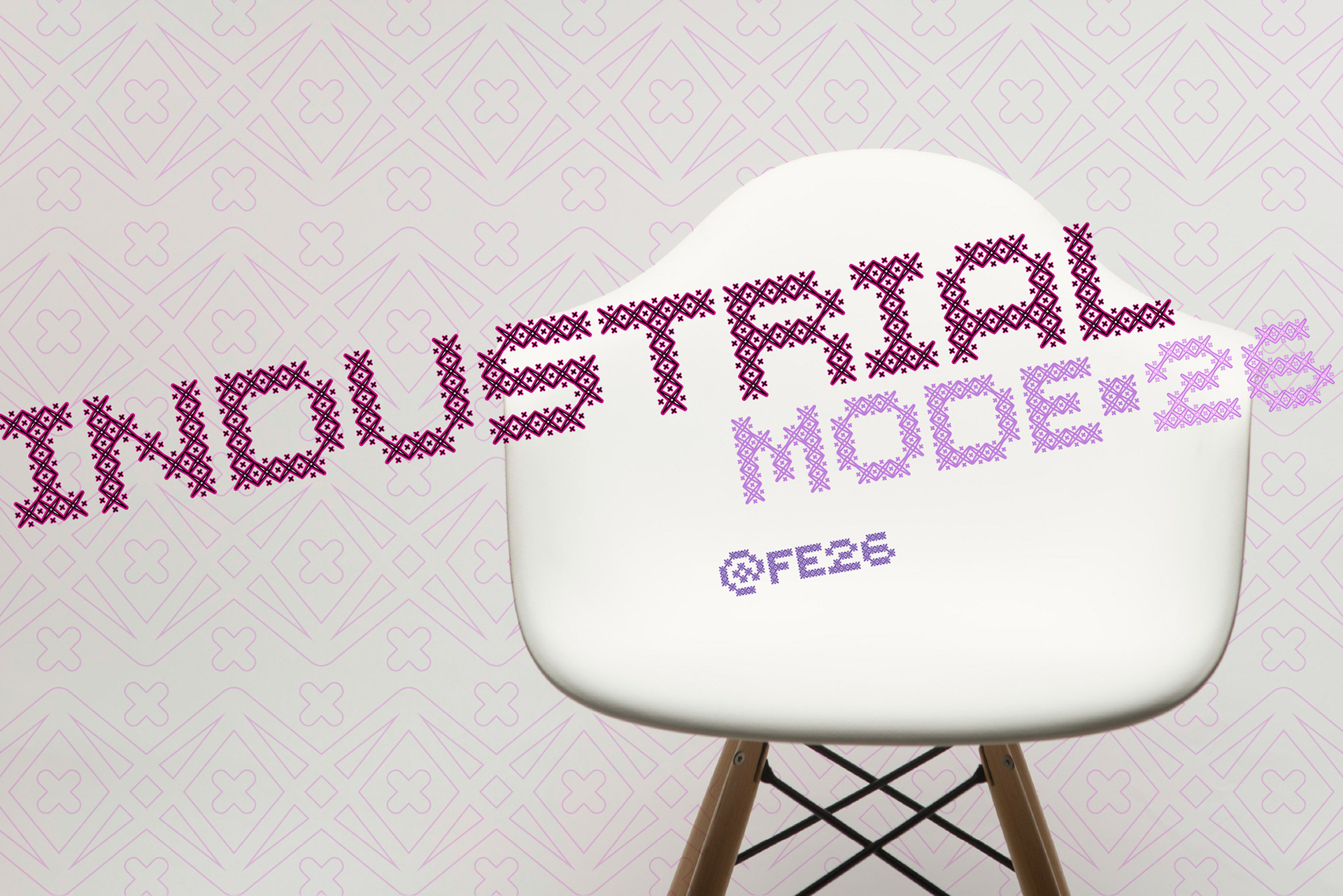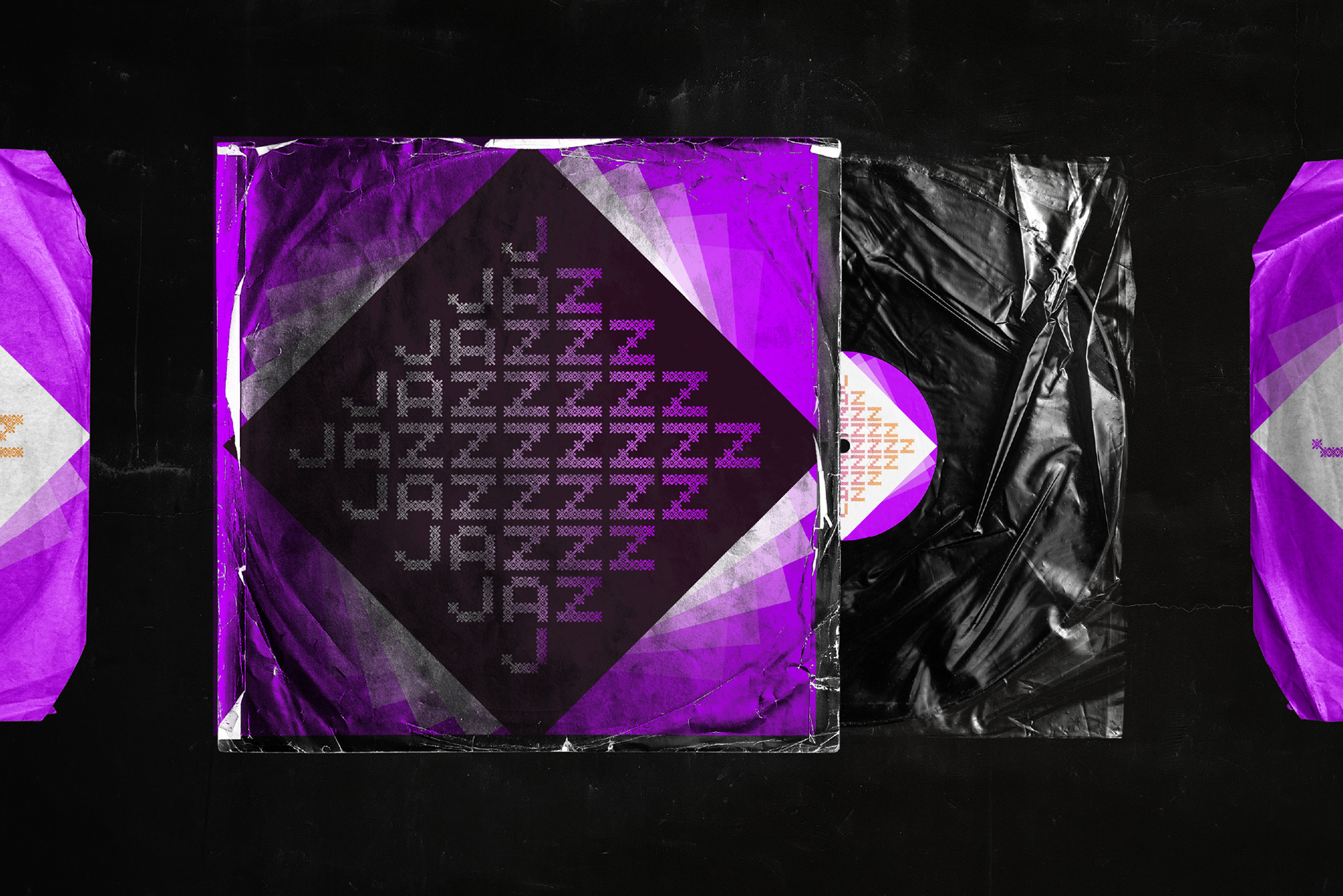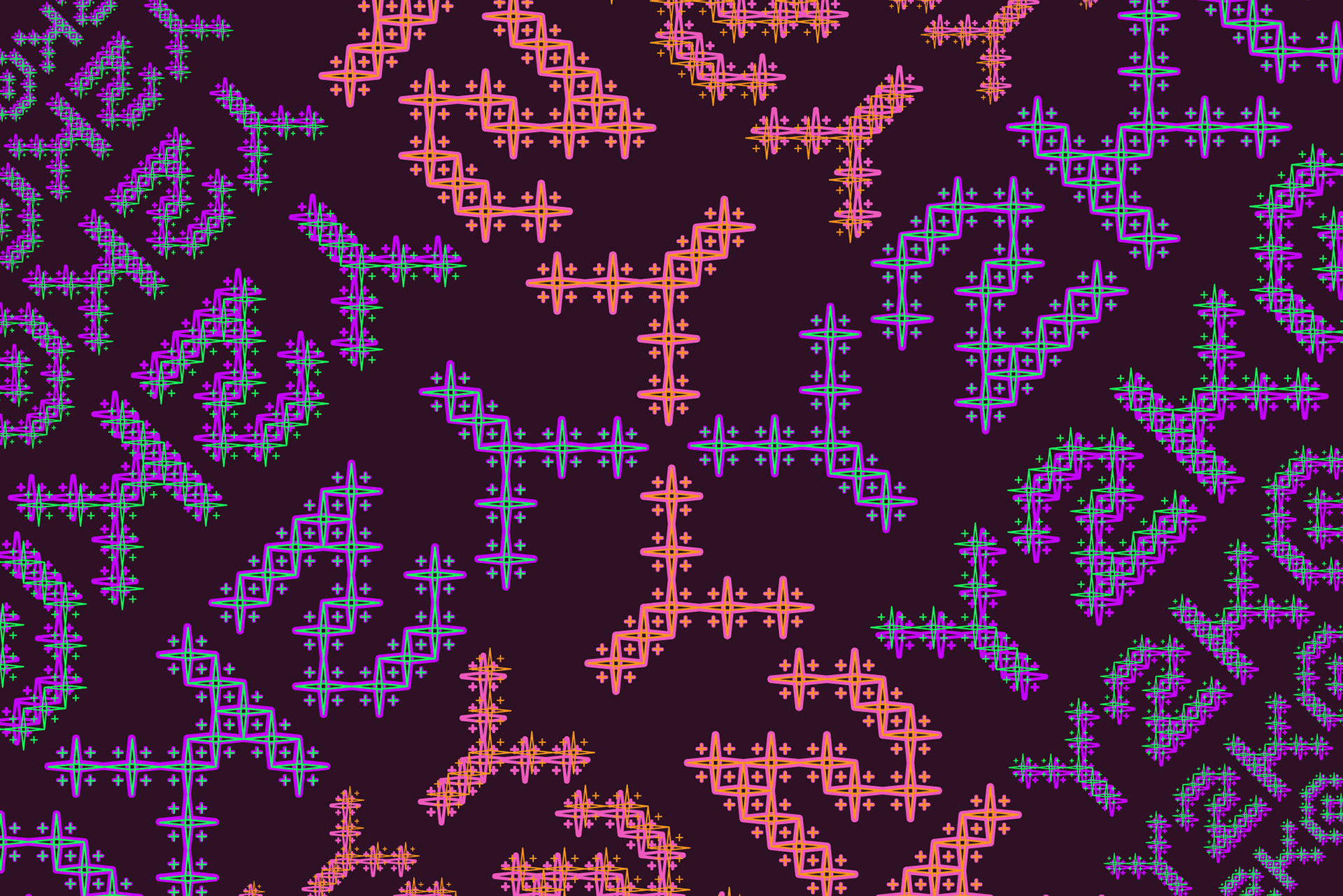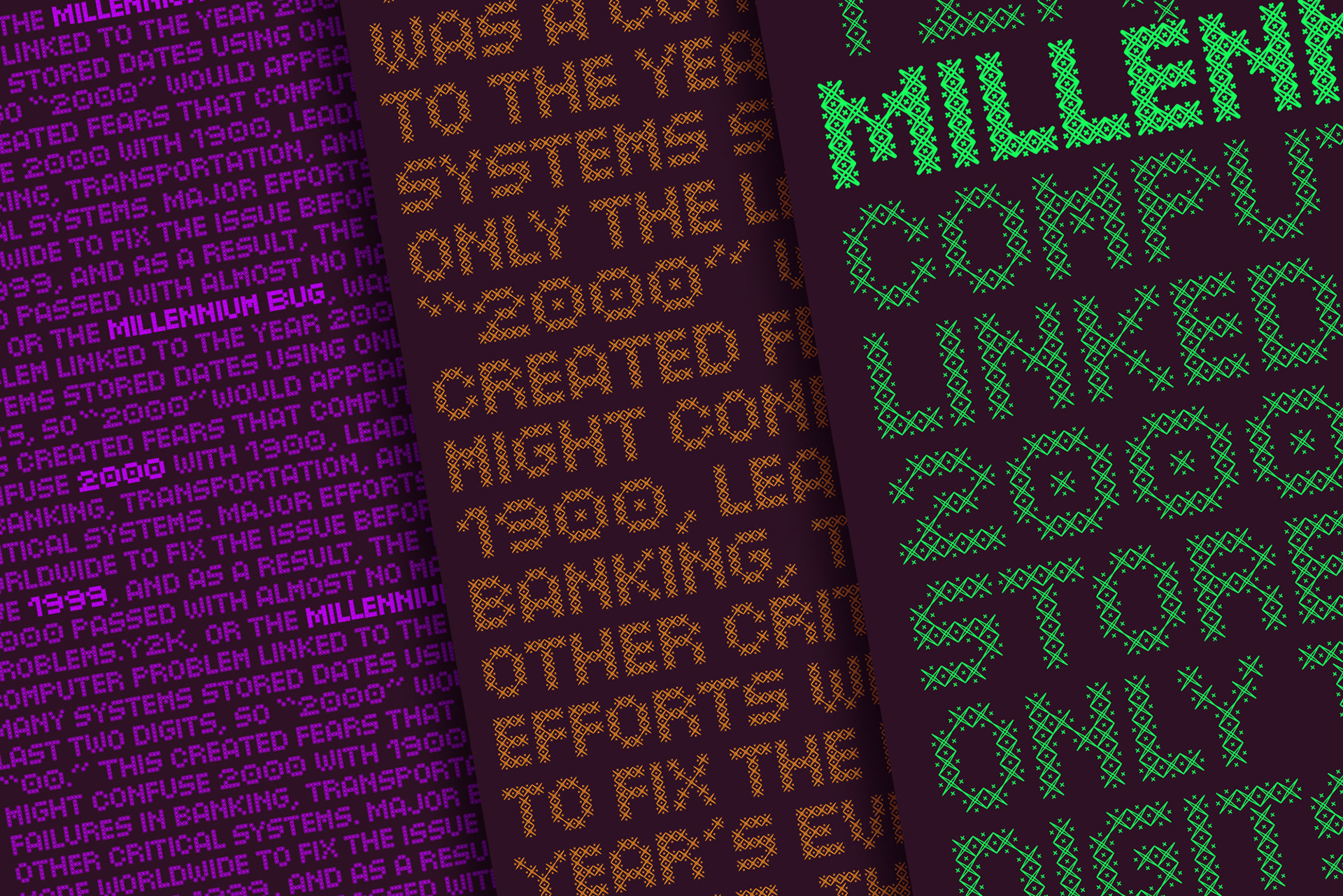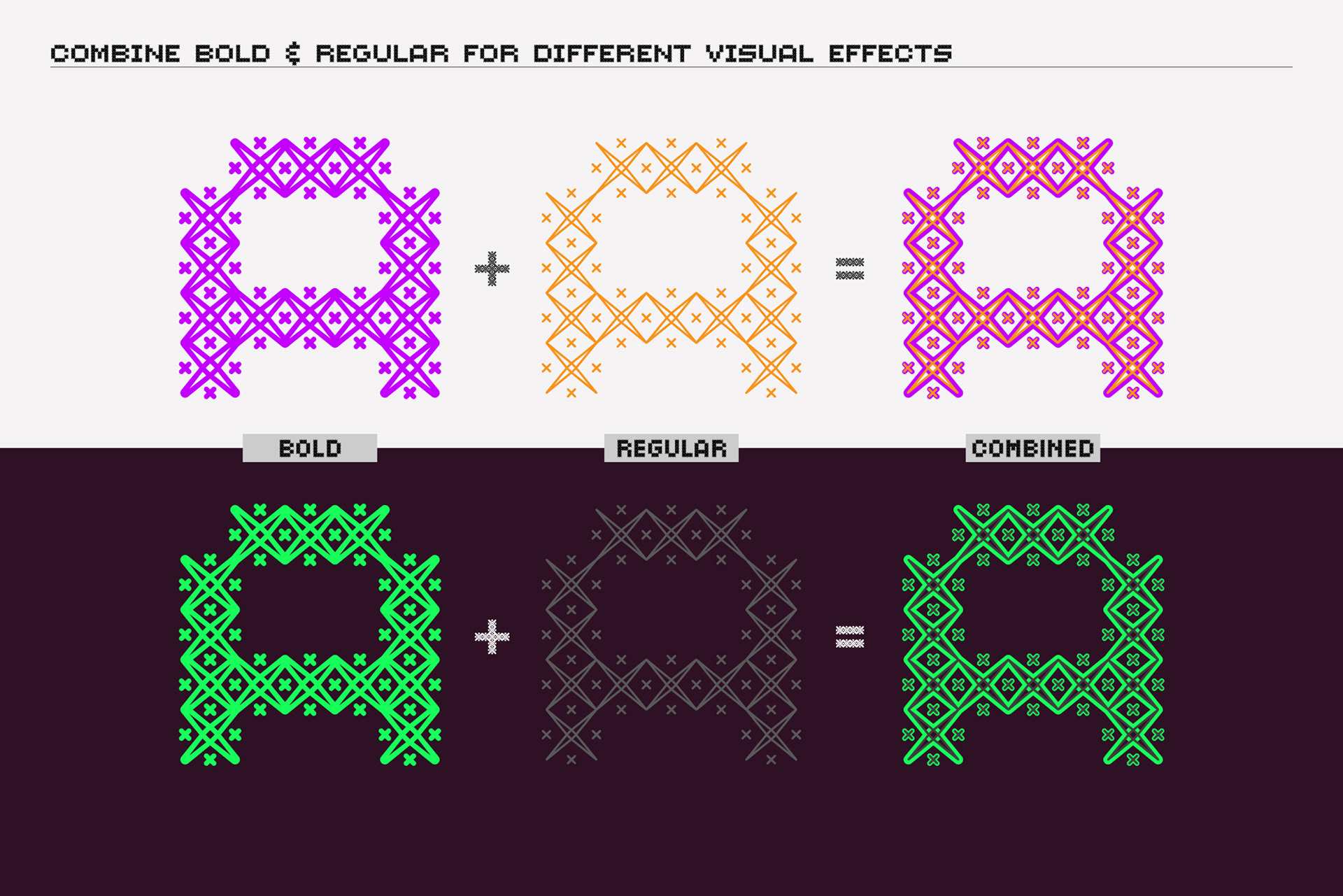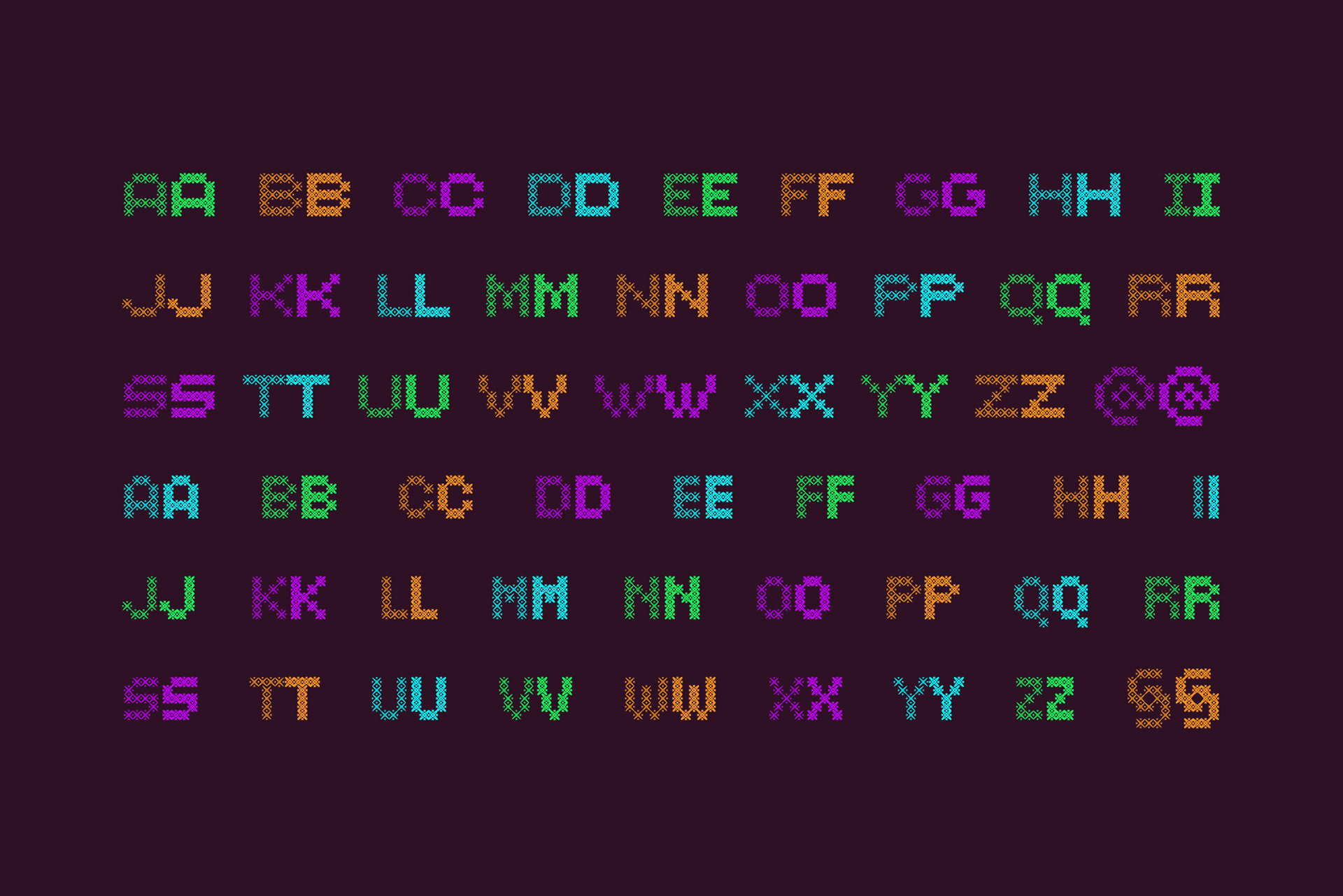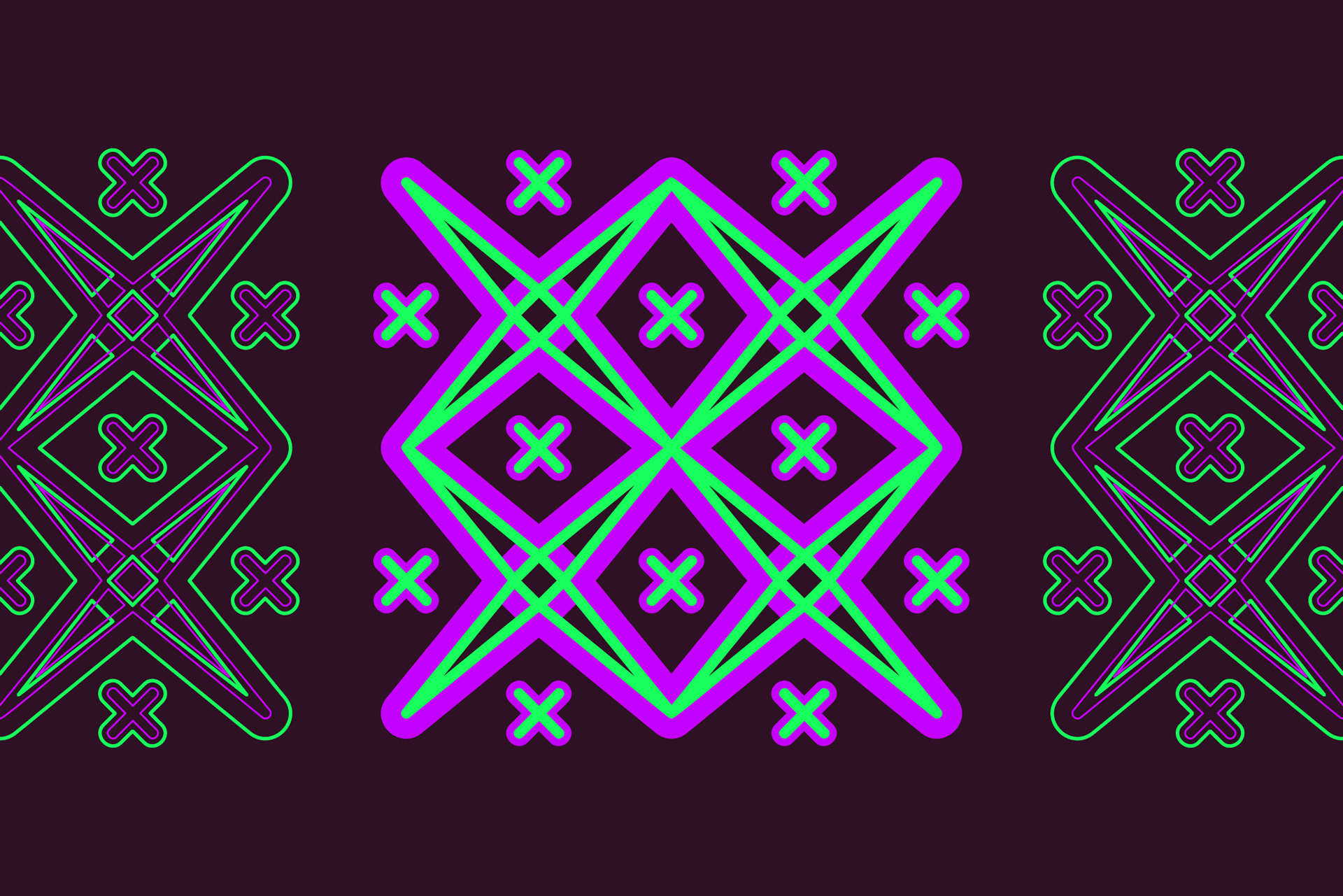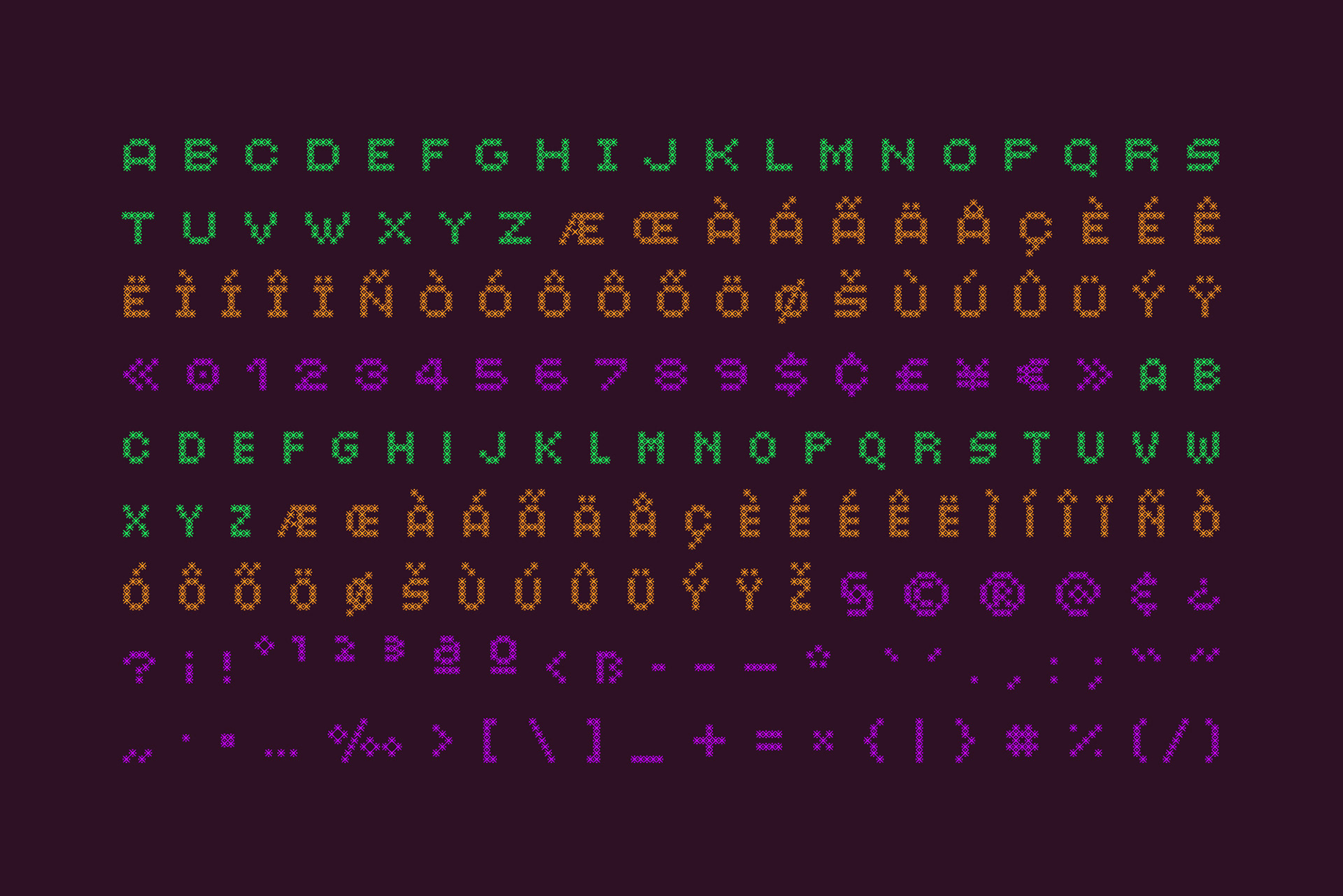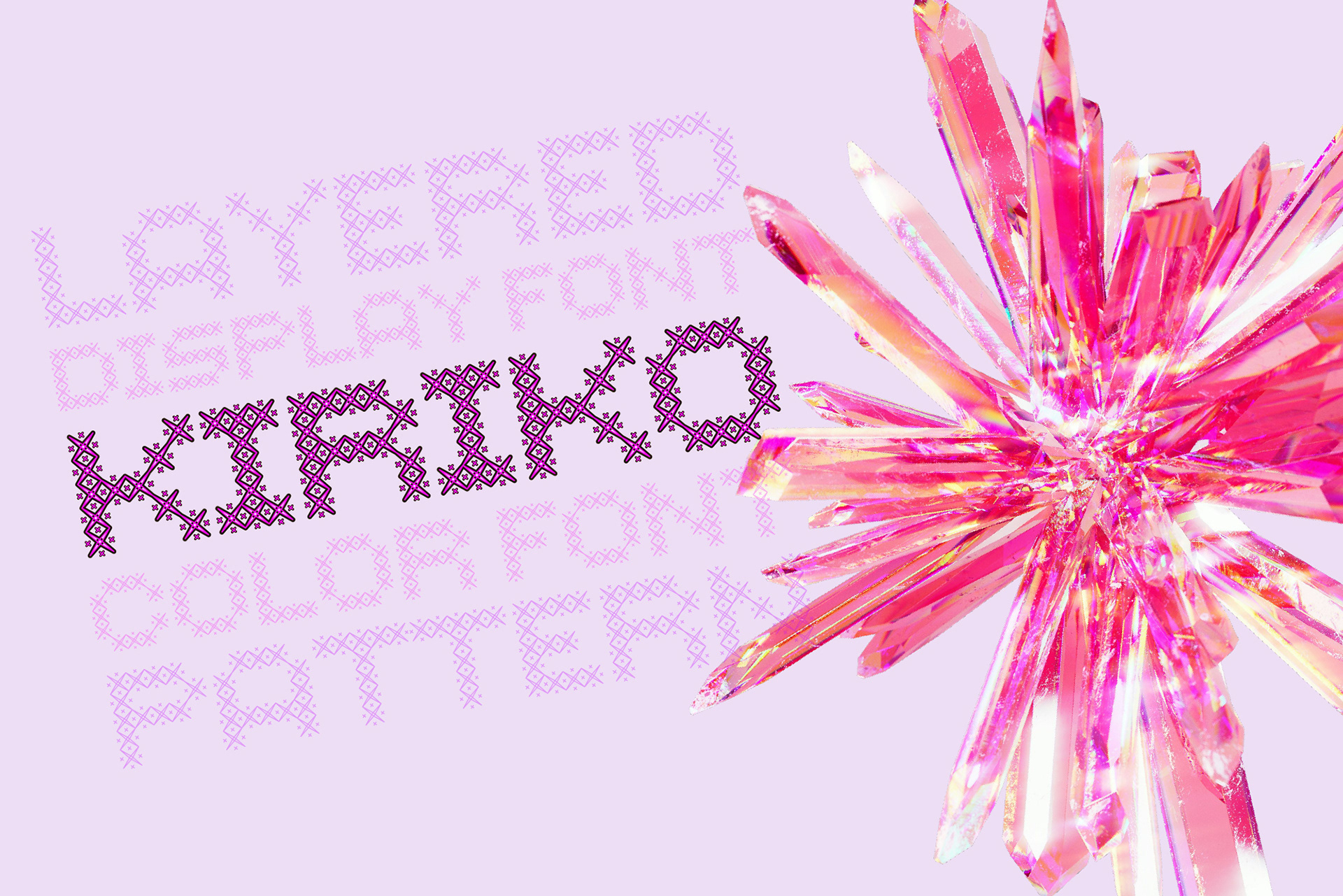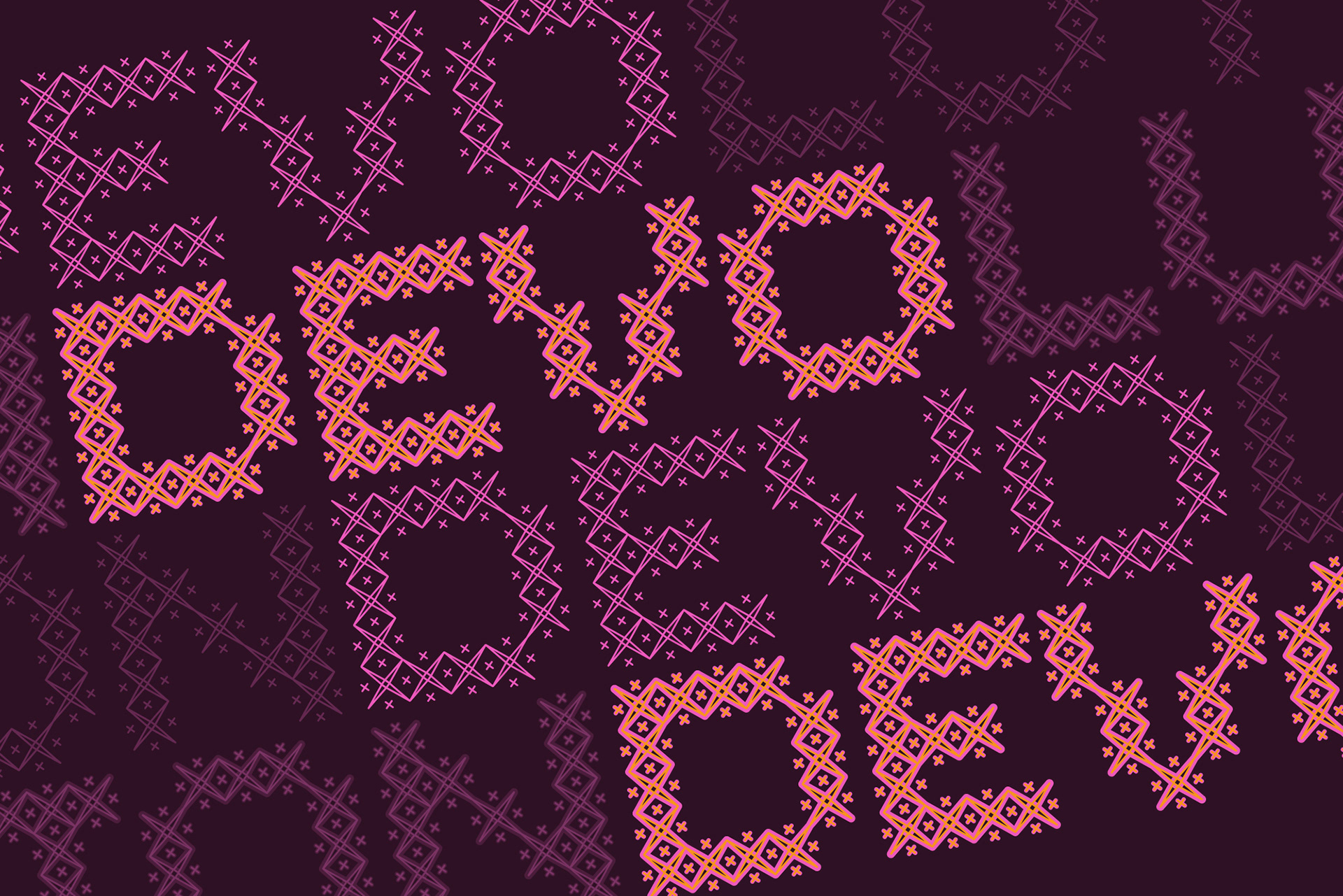
Kiriko — Pattern Display Font
Kiriko is a pattern display font perfect for bold statements in publication design, advertising, signage, and branding. Inspired by and named after the traditional Japanese art of cut glass with intricate geometric patterns, this all-caps font comes in two weights that stack together to create stunning customizable visual effects. Available on Creative Market with full commercial licensing. Pattern font with two weights and dual widths for maximum design flexibility.